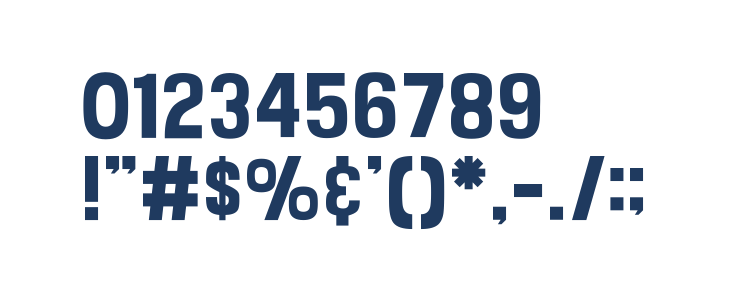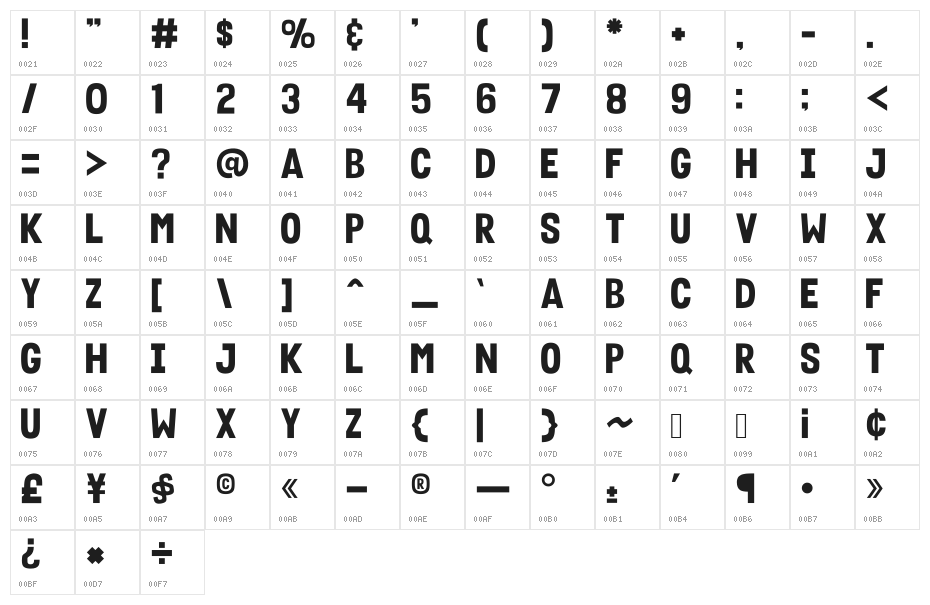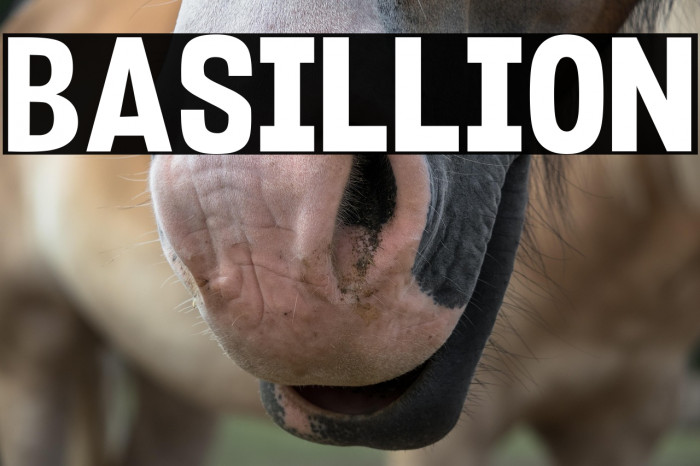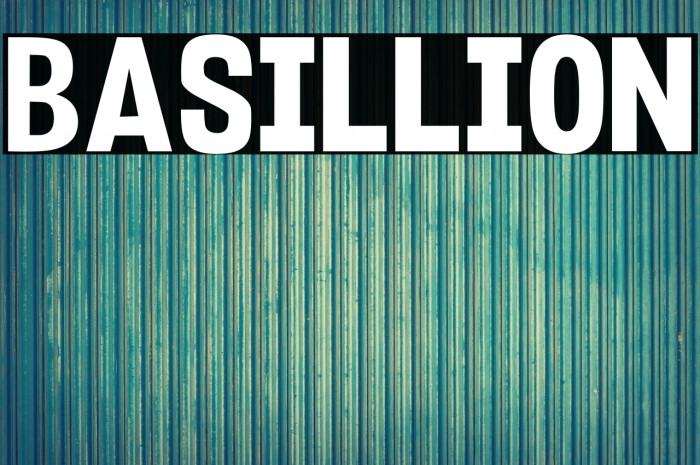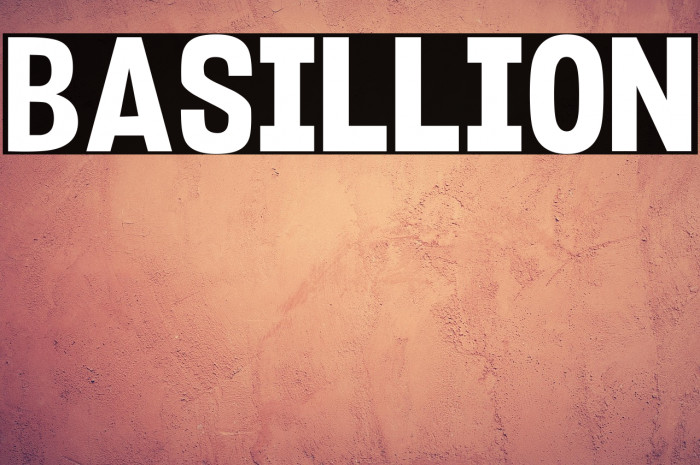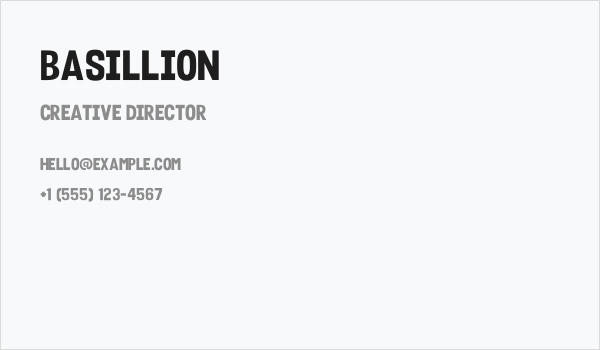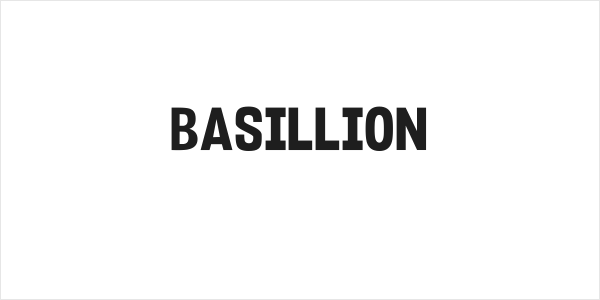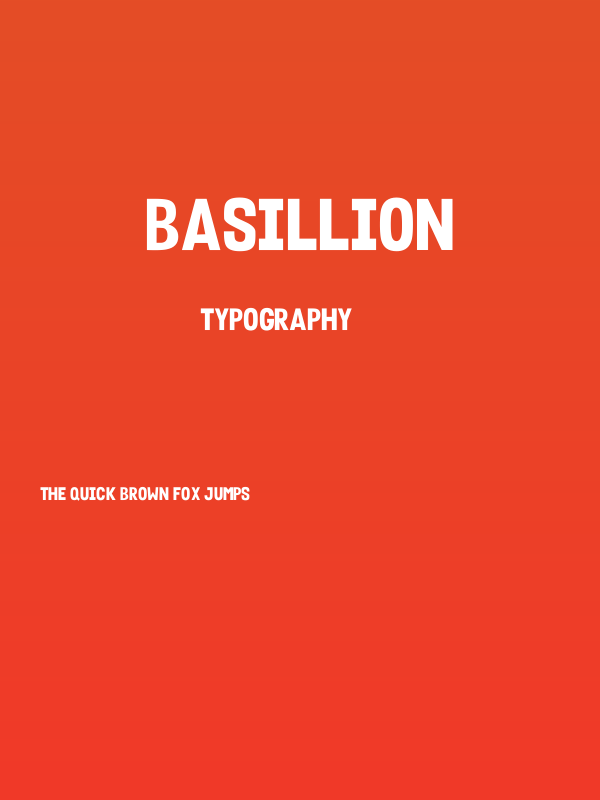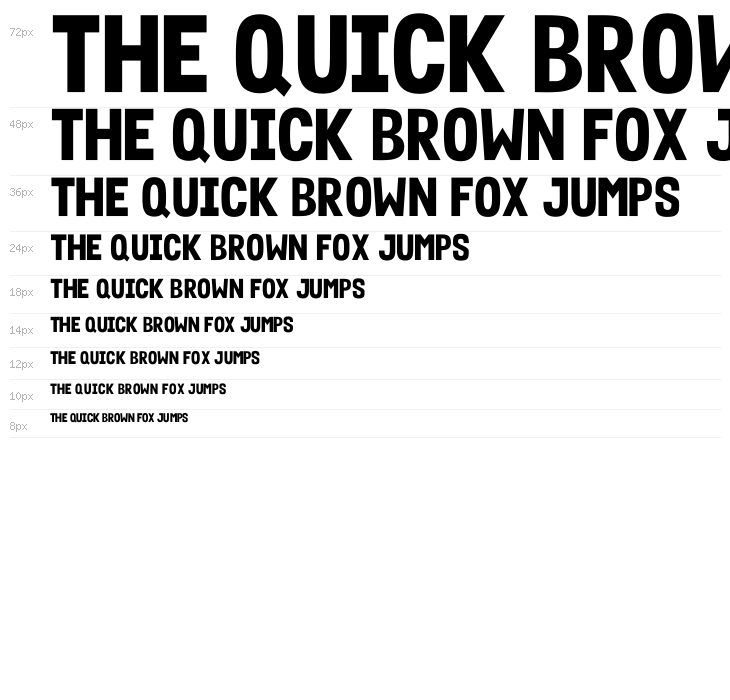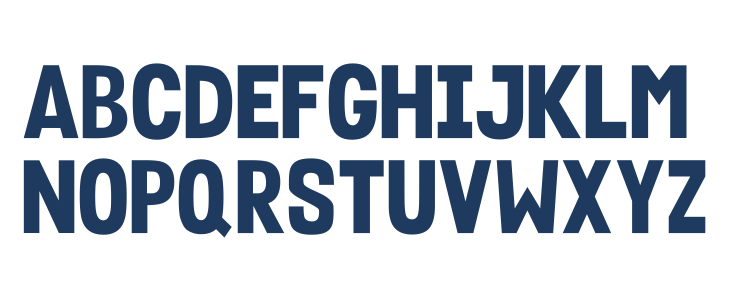
Basillion Font
Basillion Description
This font features bold, blocky characters with a strong presence, making it ideal for attention-grabbing designs. The uppercase letters are uniformly structured, providing a sense of stability and strength. The numerals are equally robust, ensuring clear readability. Special characters maintain the same bold style, offering consistency across all text elements. The overall design is straightforward and impactful, suitable for a variety of uses where clarity and emphasis are key.